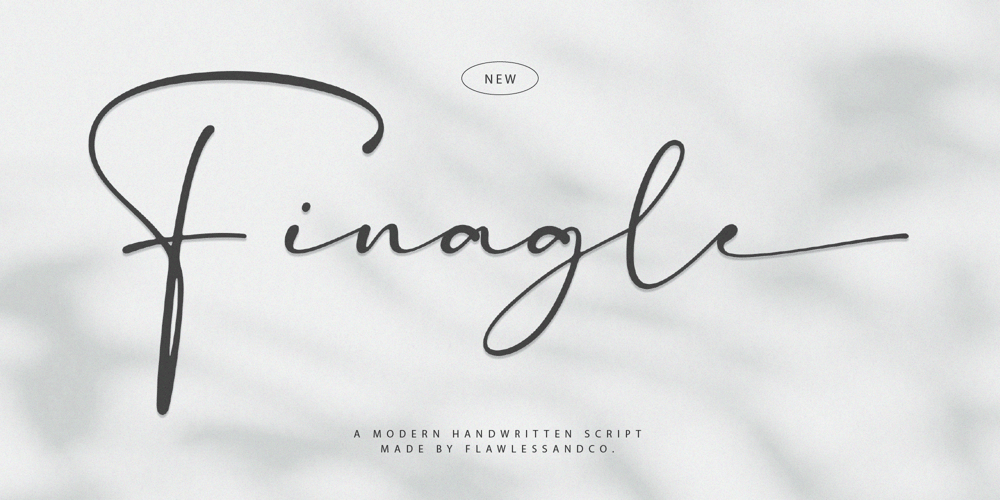
Finagle
Finagle font
Finagle Font Family was designed by Achmad Yani and published by Flawlessandco. Finagle contains 1 styles and family package options. Introducing “Finagle” – A Modern Handwritten Script Font. Unveil the beauty of modernity and the warmth of handcrafted charm with “Finagle,” a contemporary handwritten script font that brings a touch of casual elegance to your designs.There’s some connected letters and some alternates that suitable for any graphic designs such as branding materials, t-shirt, print, business cards, logo, poster, t-shirt, photography, quotes .etcThis font support for some multilingual. Also contains uppercase A-Z and lowercase a-z, alternate character, numbers 0-9, and some punctuation.